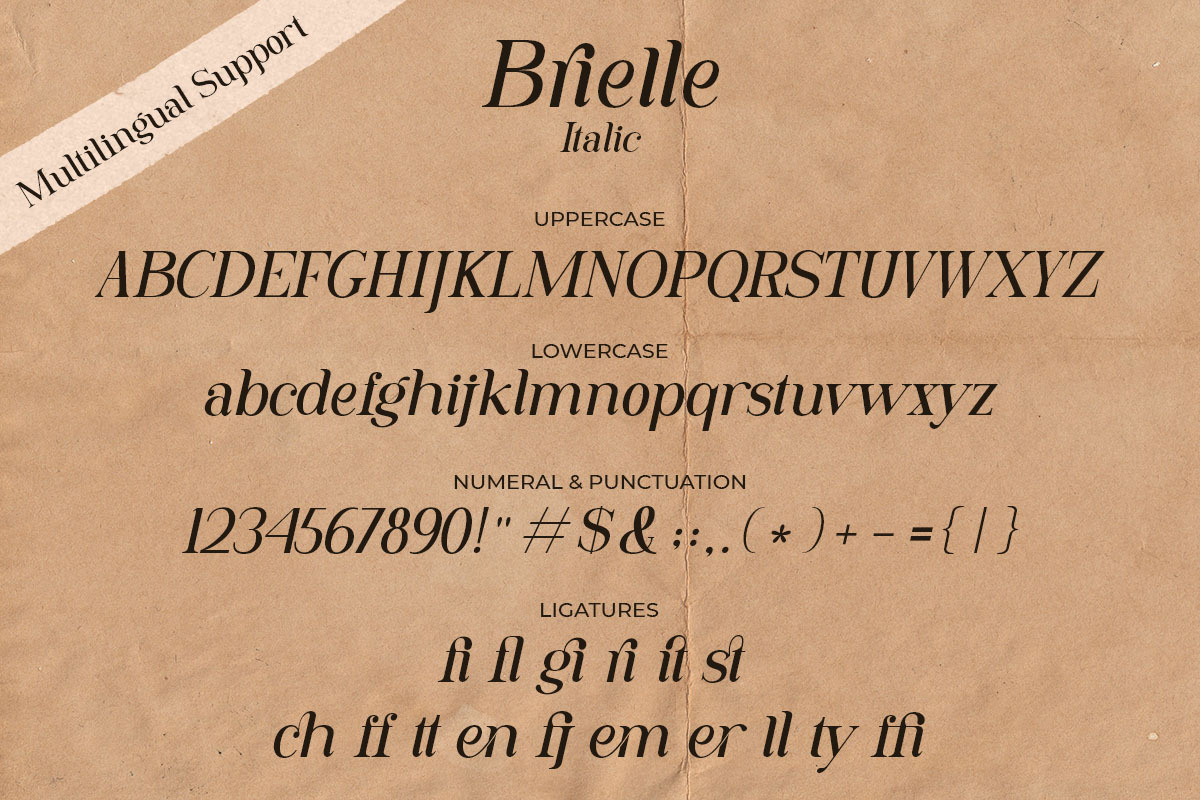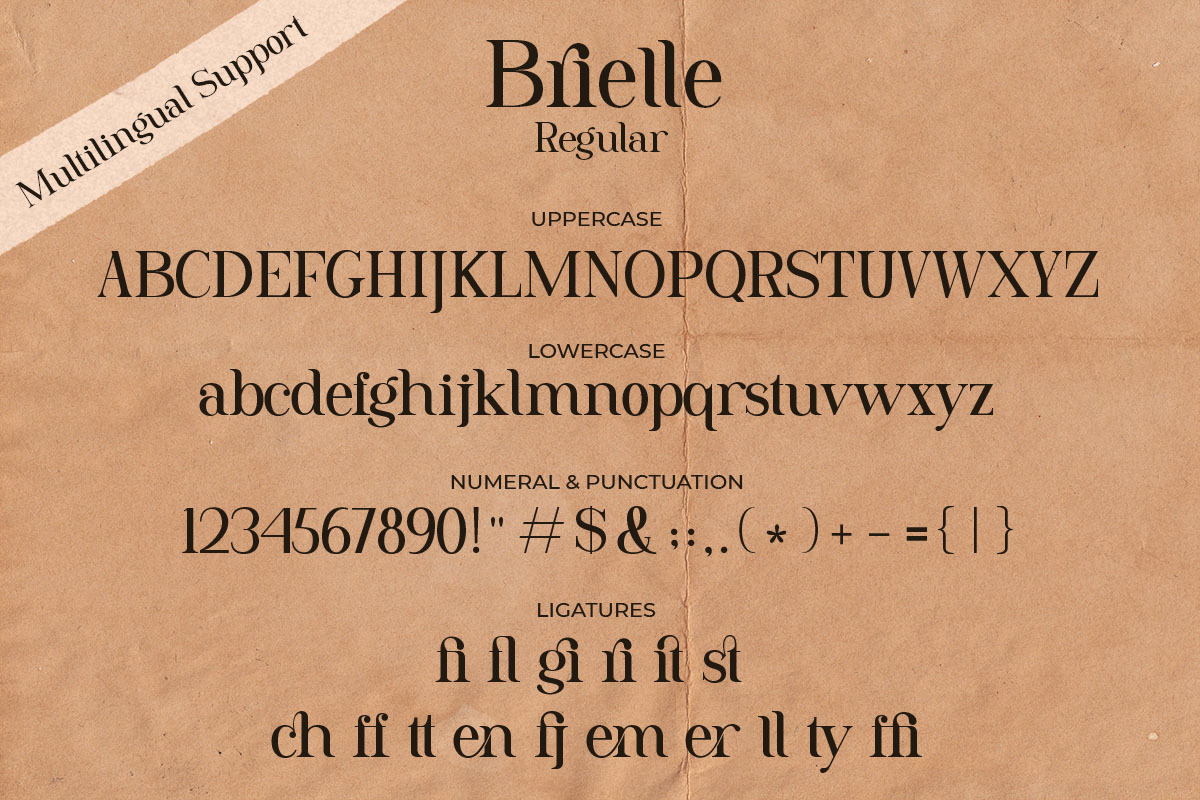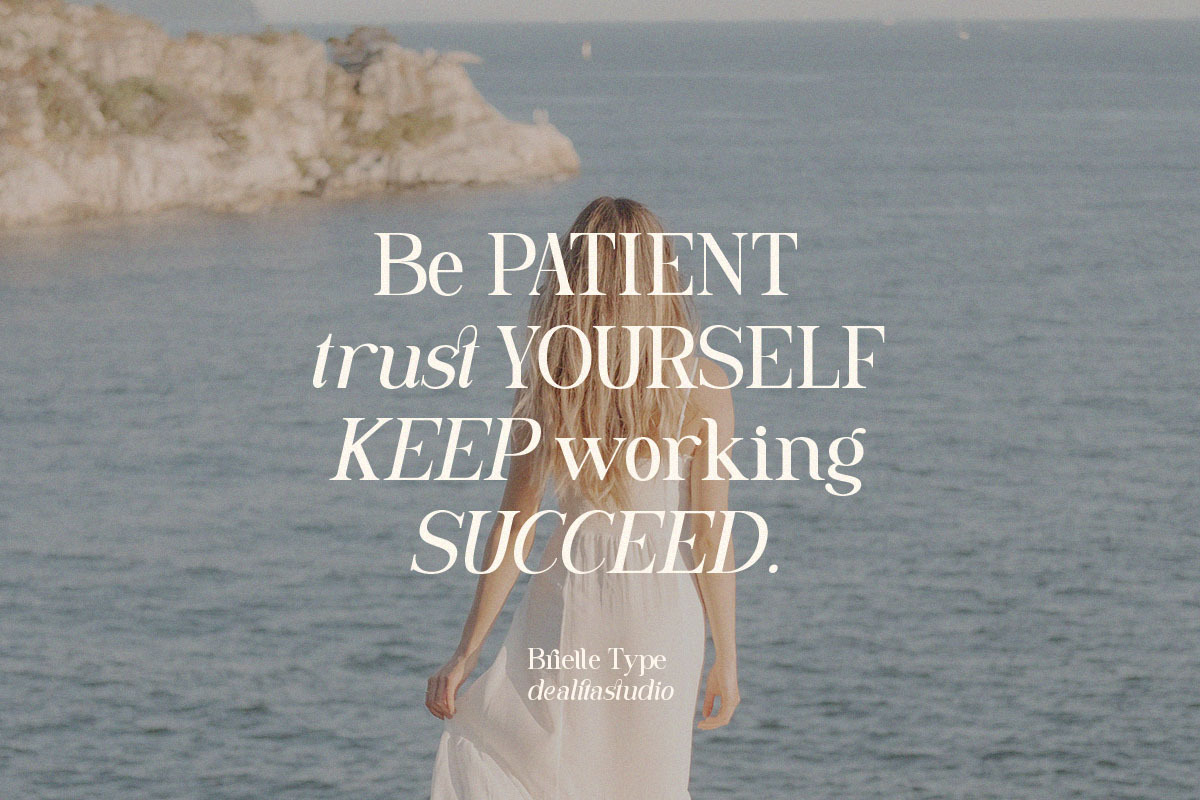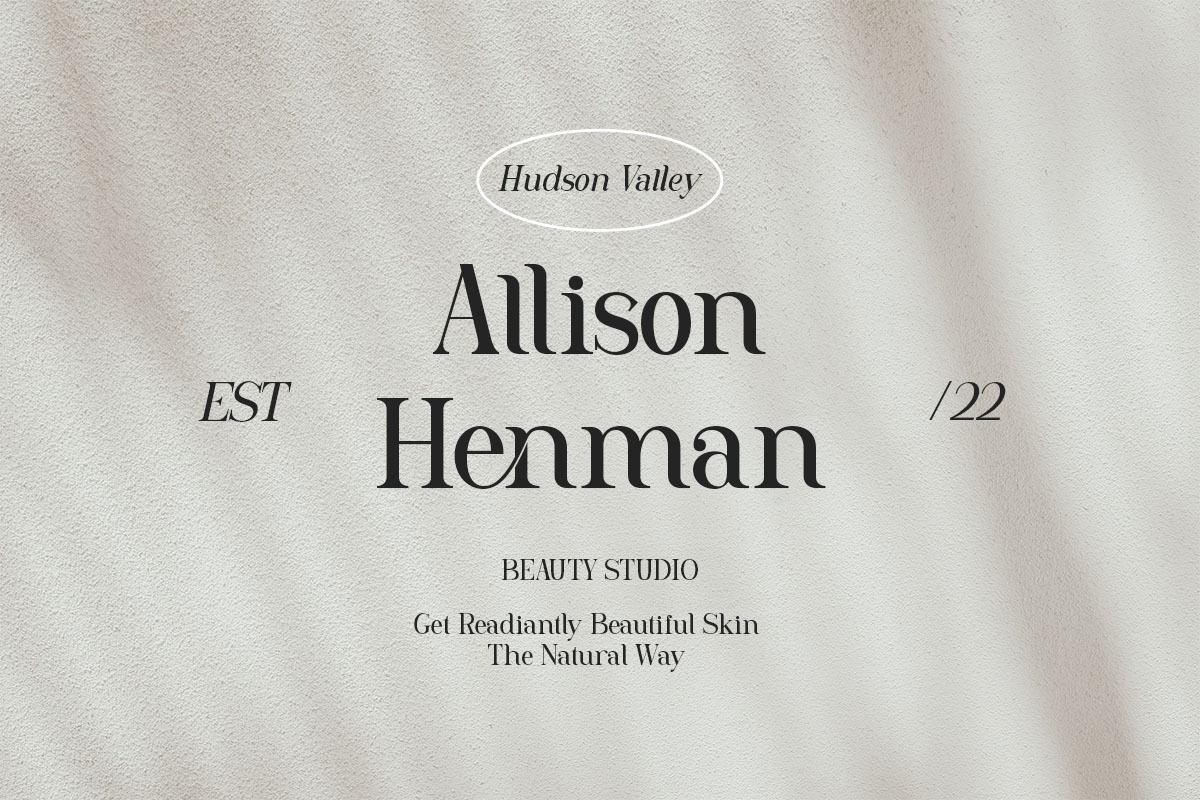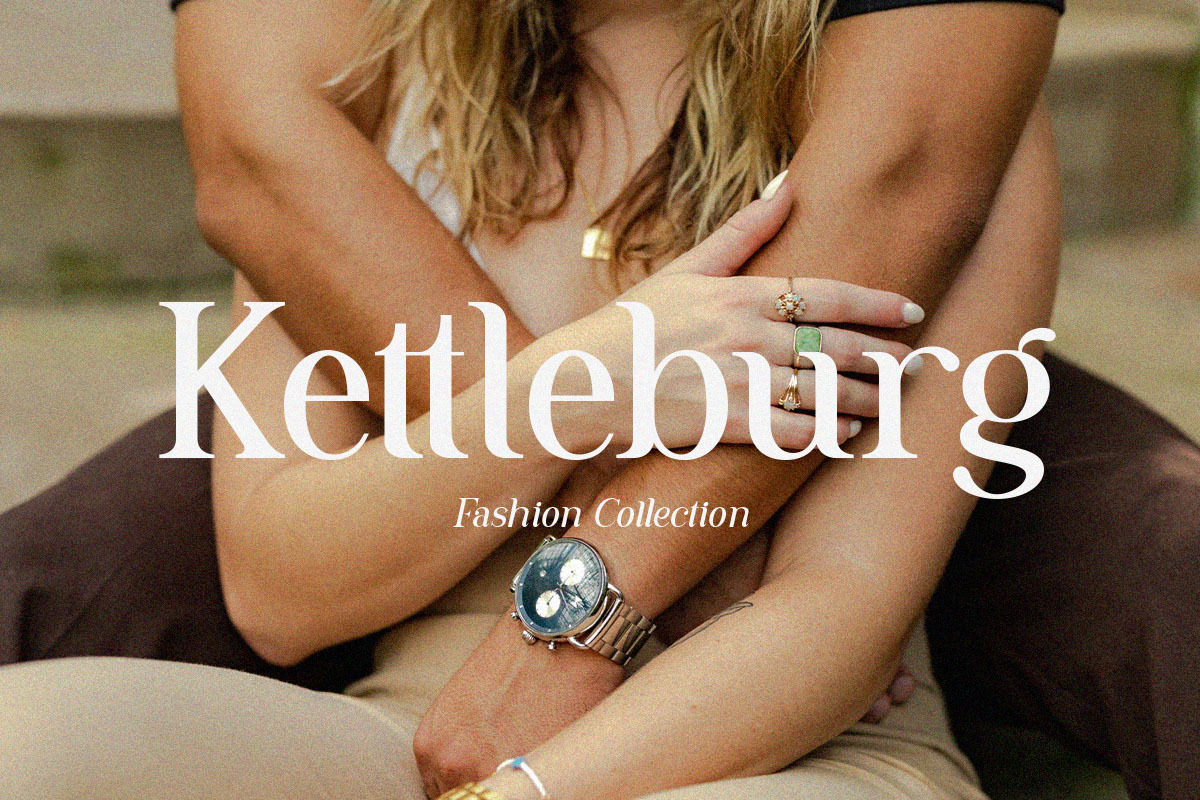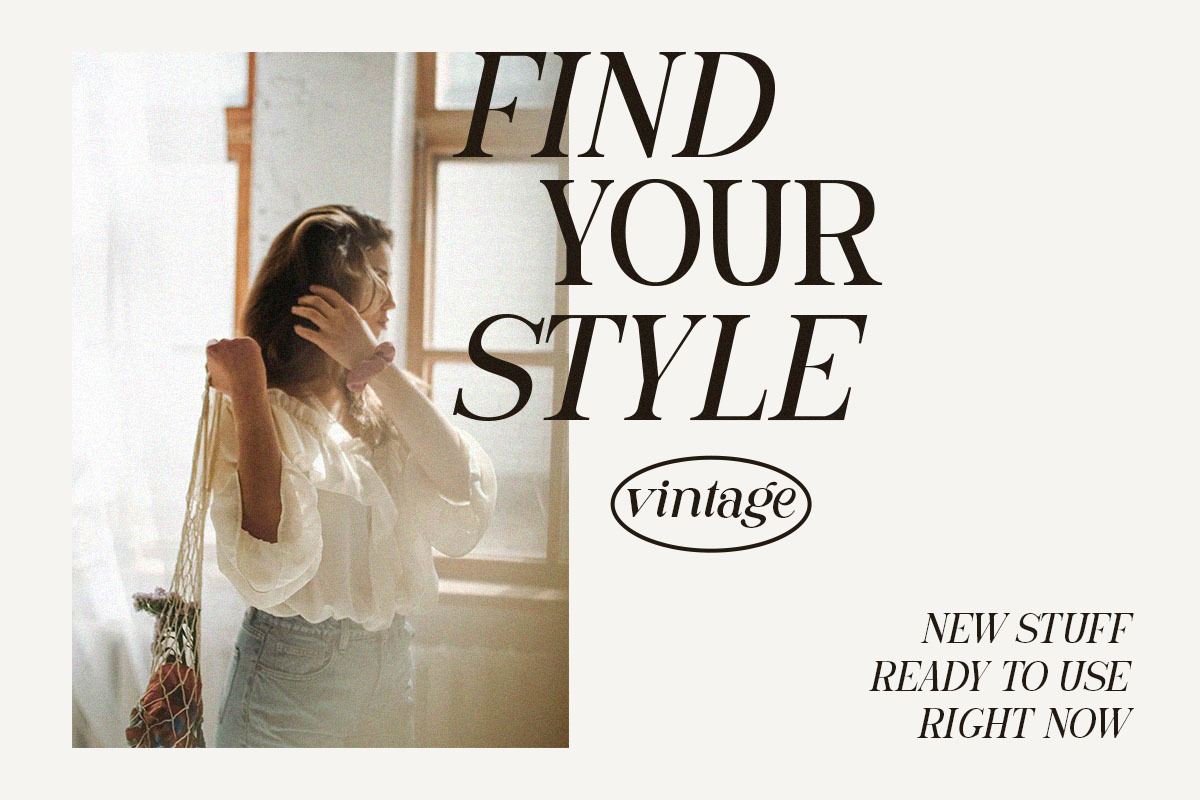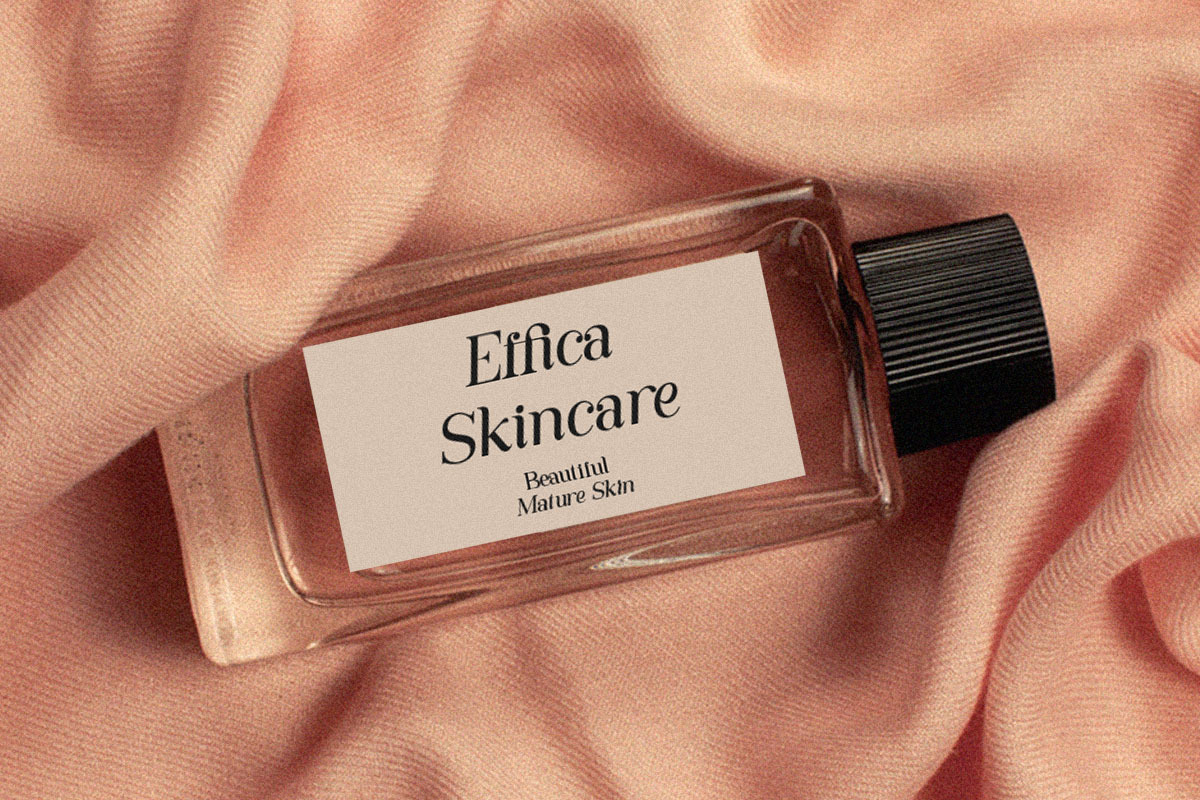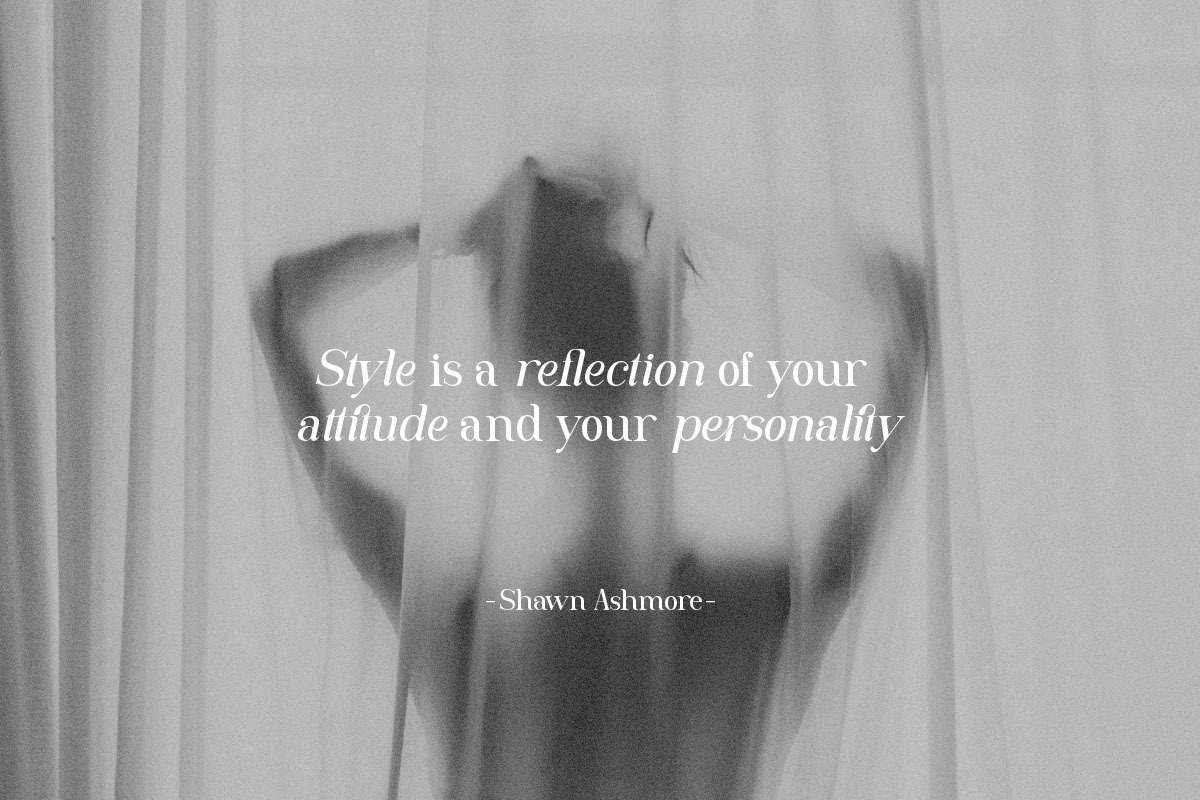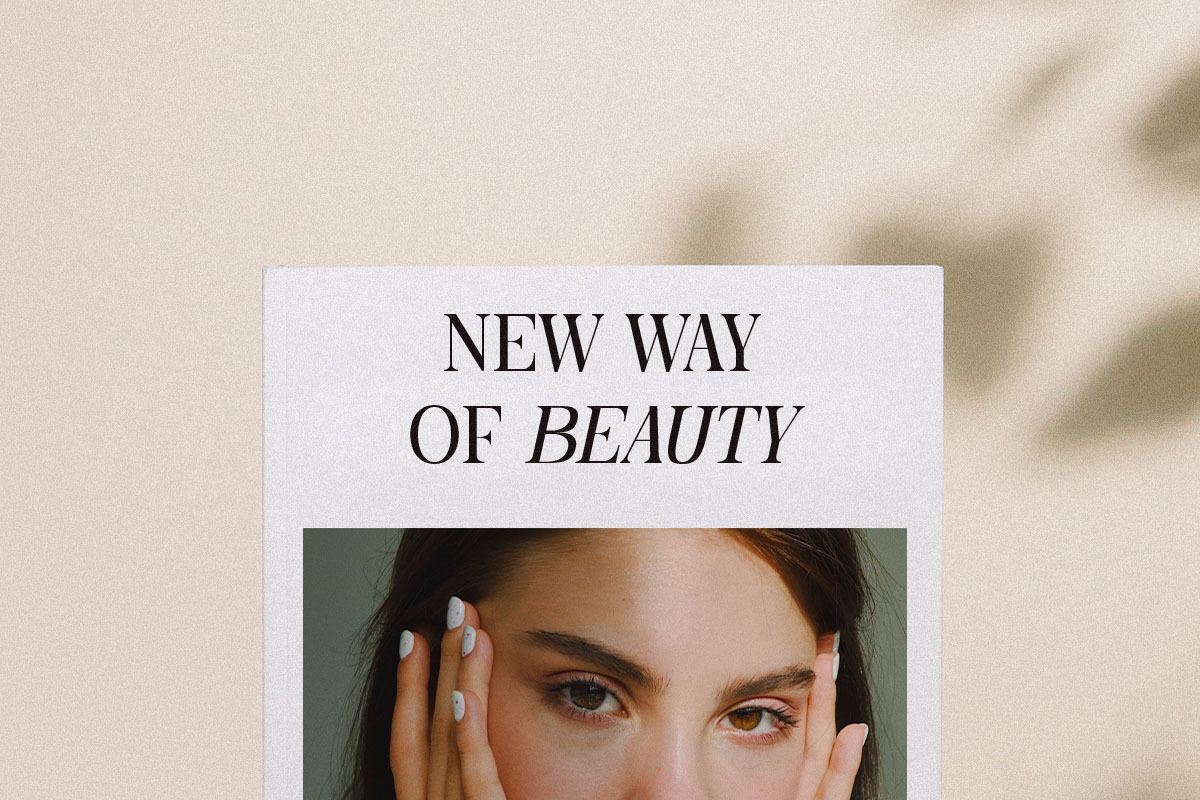
Brielle – Modern Serif
Introducing Brielle, a refined and contemporary serif typeface that blends classic elegance with a modern twist. Designed for sophisticated branding, editorial layouts, and premium designs, this font stands out with its unique letterforms and timeless appeal.
With a perfect balance of sharp edges and smooth curves, Brielle delivers a bold yet graceful aesthetic. Its distinctive character shapes enhance readability while adding a luxurious touch to logos, magazines, websites, and high-end branding projects. Whether used for fashion editorials or corporate identities, this typeface ensures a polished and professional look.
- Modern serif style – A blend of classic and contemporary design
- Elegant letterforms – Unique details for a sophisticated look
- Versatile usage – Ideal for branding, editorial, and web typography
- Multilingual support – Designed for international projects
- Perfect for logos, magazines, luxury packaging, and more